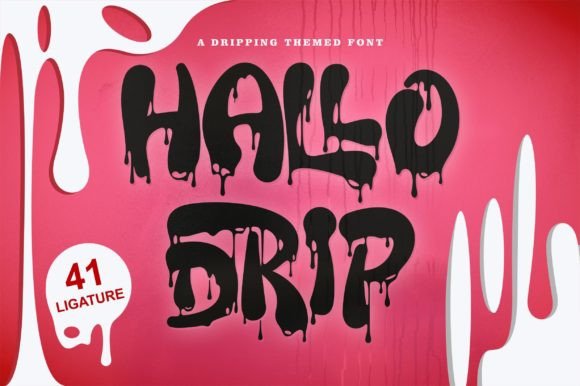
Introducing Hallo Drip Font, the best font for digital display that will take your projects to a whole new level of fun and creativity. Created by the talented team at Tedha Studio, this dripping and thick display font is guaranteed to capture attention and leave a lasting impression.
With its scary and spooky vibe, Hallo Drip Font is an absolute must-have for all your Halloween and horror-themed projects. Whether you're designing party invitations, haunted house posters, or spooky social media graphics, this font will bring an extra touch of eeriness to your creations.
One of the standout features of Hallo Drip Font is its PUA encoding, which allows easy access to all the unique glyphs and swashes. This means you can effortlessly incorporate stunning decorative elements into your designs, making them even more visually appealing and captivating.
Imagine the thrill of seeing your text come to life with dripping letters that ooze with creativity. Hallo Drip Font adds a touch of whimsy and playfulness to any design, making it perfect for children's book covers, quirky logos, or even eye-catching signage.
Not only does Hallo Drip Font capture attention, but it also evokes a range of emotions. Its spooky and mysterious nature taps into the excitement and anticipation that Halloween brings. It creates a sense of curiosity and draws users in, making them eager to explore more.
Stand out from the crowd with this captivating font that screams originality and personality. Hallo Drip Font is the perfect choice for those who dare to be different and want to make a bold statement with their designs.
Experience the thrill of Hallo Drip Font and let your imagination run wild. Your designs will never be the same again!